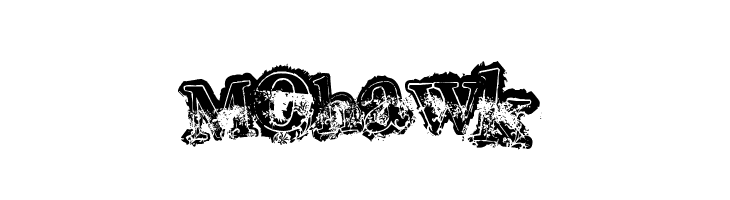
• Mohawk फ़ॉन्ट
( Fonts by Gyom Seguin - last-soundtrack.daportfolio.com )
A bold, distressed font with a rugged, grunge appearance.
• Moher Regular फ़ॉन्ट
An ornate, decorative font with intricate detailing and a vintage flair.
• Mohica Demo फ़ॉन्ट
A bold, hand-drawn font with a playful, organic style.
• Mohican Regular फ़ॉन्ट
A bold, geometric font with a modern and tech-inspired design.
• mohr फ़ॉन्ट
( Fonts by weknow - Wino S Kadir )
A bold, geometric font with a futuristic and impactful design.
• mohr फ़ॉन्ट
A bold, geometric font with circular motifs and unique cutouts.
• mohr Bold फ़ॉन्ट
A bold, geometric font with unique cutouts and rounded edges.
• mohr Bold Italic फ़ॉन्ट
A bold, italicized, and modern decorative font with unique geometric cutouts.
• mohr Italic फ़ॉन्ट
A bold, italic font with a dynamic and modern style.
• mohr-Hollow फ़ॉन्ट
A modern, geometric hollow font with a bold outline and playful style.